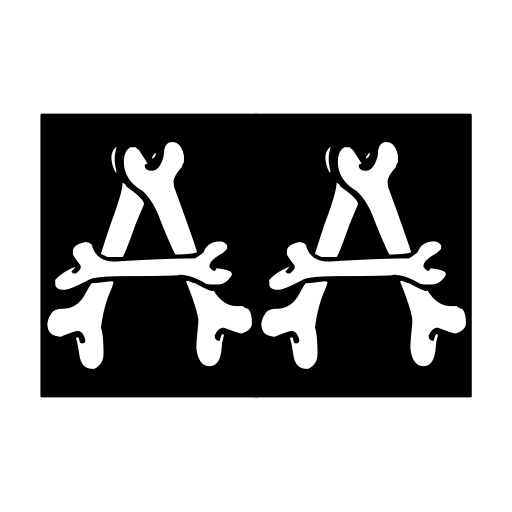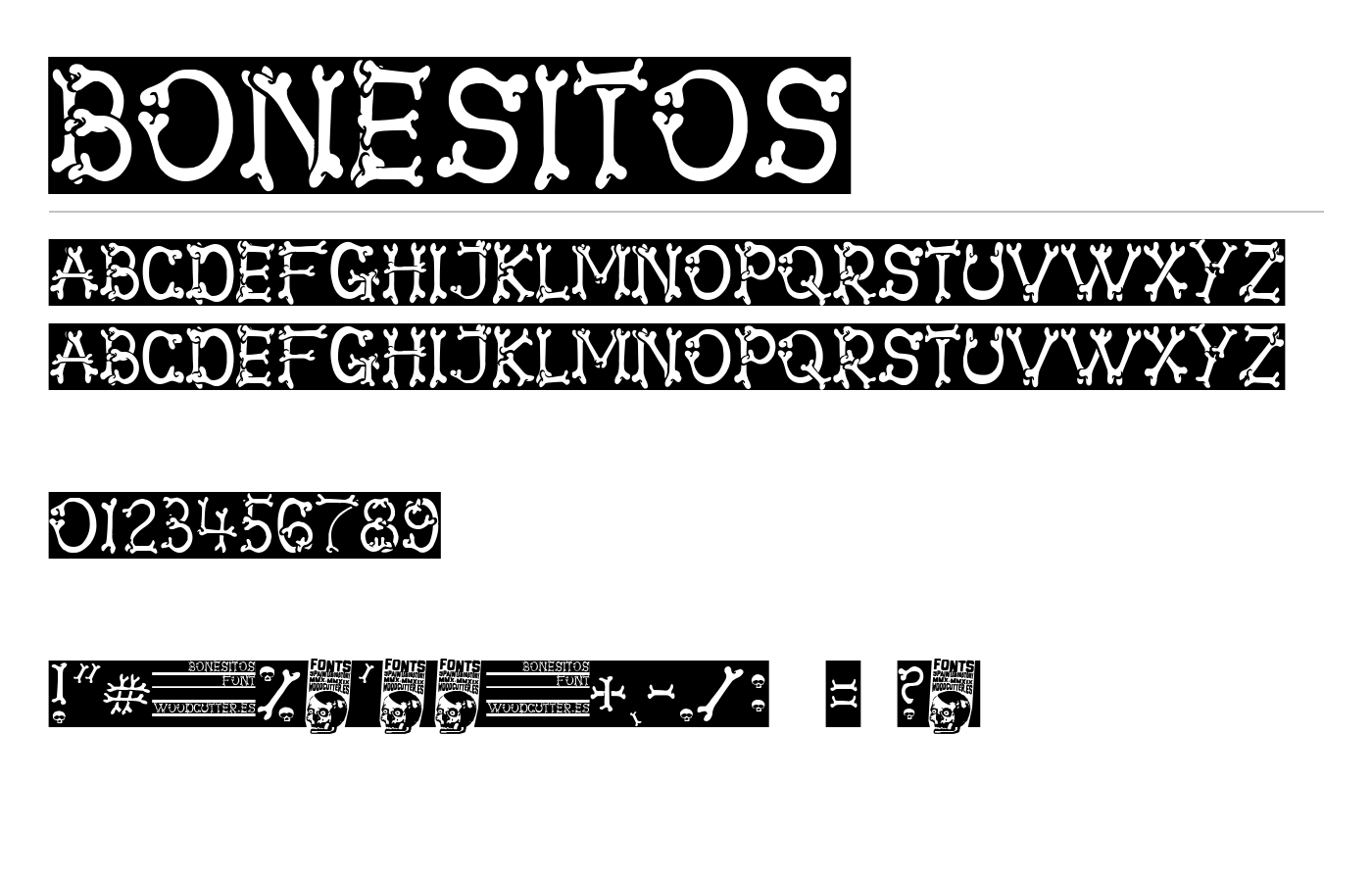
Bonesitos is a playful and decorative display font featuring uppercase letters and numbers styled like small bones, giving it a quirky, spooky vibe. Its unique design makes it perfect for themed invitations, Halloween projects, or brands seeking a fun, attention-grabbing look with a touch of macabre charm.
Bonesitos Font
About Bonesitos Font